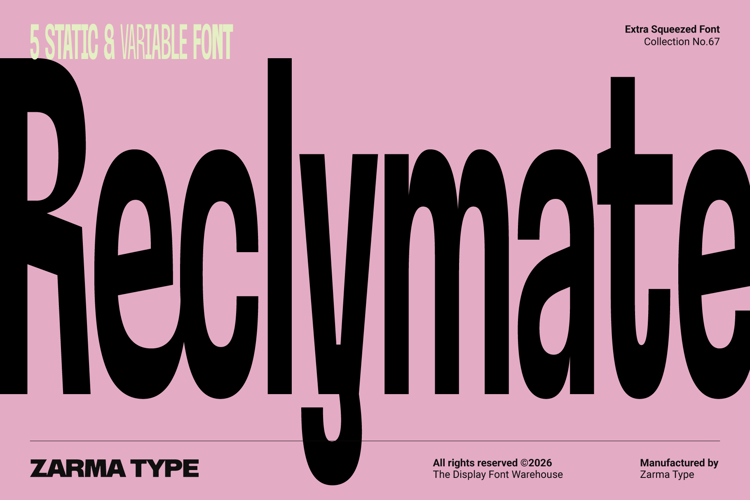
Reclymate Bold Font
Reclymate is an extra condensed font built from the ground up with deliberately narrow proportions, elongated letterforms, and carefully controlled curves. Instead of digitally squeezing a normal-width typeface, every character is manually crafted to work naturally within its compressed structure, preserving balance, readability, and personality even at an extreme width. The result is a distinctive sans serif display font with a tall, contemporary, and editorial character that feels purpose-built rather than artificially distorted. Its compact horizontal footprint makes it especially effective for oversized headlines, bold poster layouts, sports and matchday graphics, fashion and culture campaigns, modern brand identities, packaging, magazine design, architecture portfolios, and web interfaces where typography needs maximum visual impact without consuming excessive space.
Reclymate includes five static weights—Thin, Light, Regular, Medium, and Bold—plus a variable font for greater flexibility across responsive, experimental, and digital typography. The family includes uppercase and lowercase characters, numerals, punctuation, symbols, more than 20 ligatures, stylistic alternates, extensive multilingual support, and static OTF, TTF, WOFF, and WOFF2 files, giving designers a complete system for both print and screen. Whether used for high-impact editorial headlines, contemporary poster design, branding, packaging, social campaigns, or digital hero typography, Reclymate maintains its unmistakably compressed voice while offering enough range to move from delicate narrow text to strong display statements. Designed condensed rather than simply squeezed, Reclymate helps you build taller, more expressive typography without shrinking your ideas.